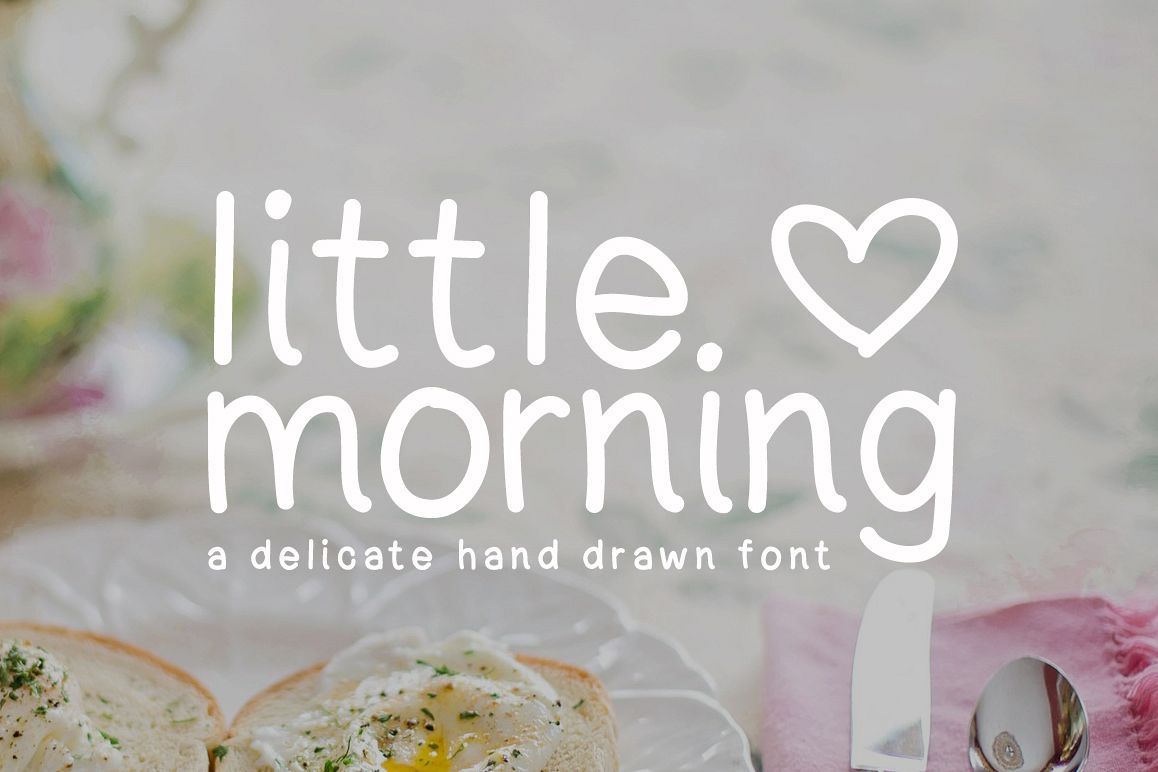
Little Morning Plain Font
Little Morning is a delicate handwritten font that looks great on text and paragraphs.
• Uppercase and lowercase
• Numbers and punctuation